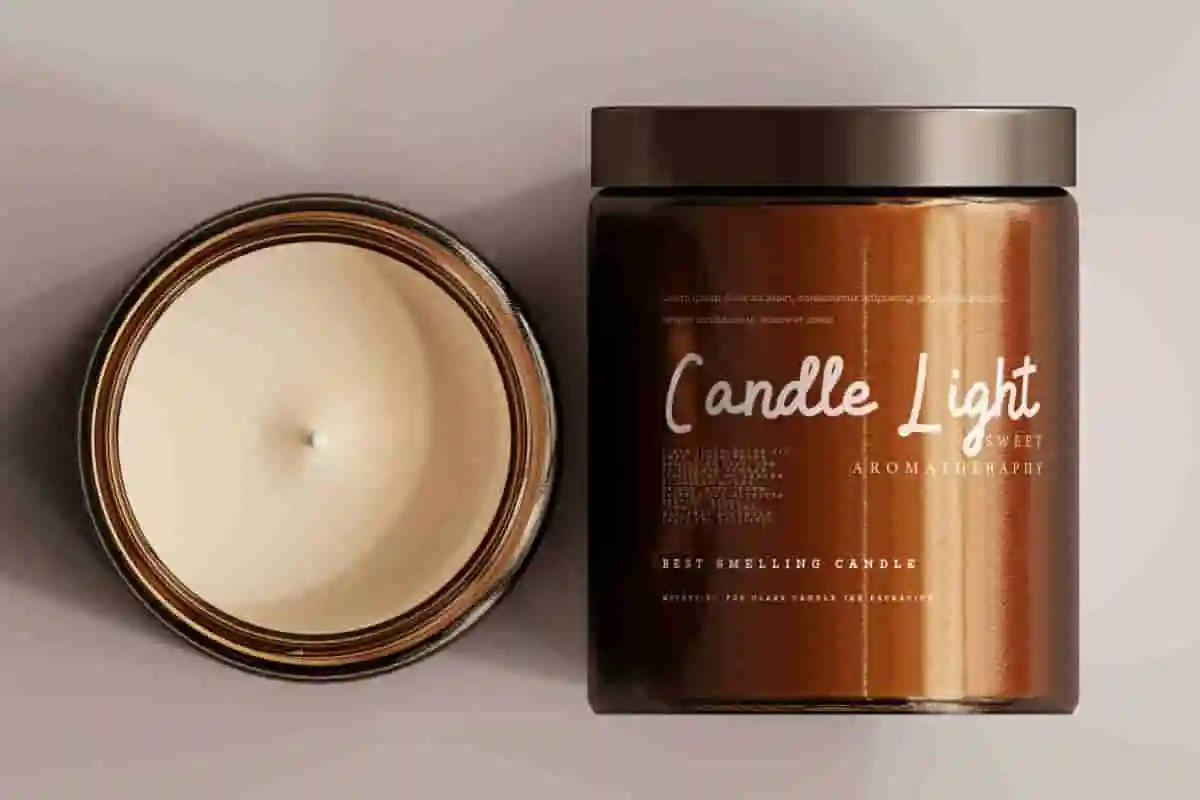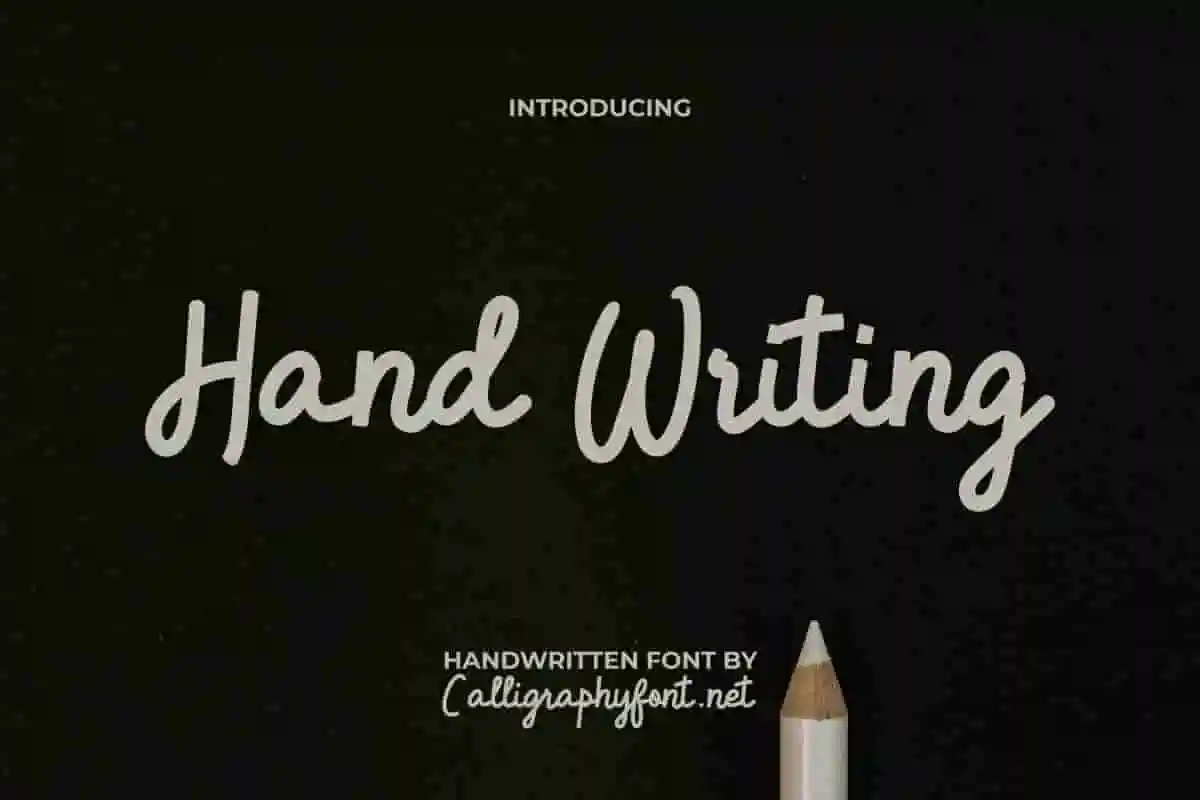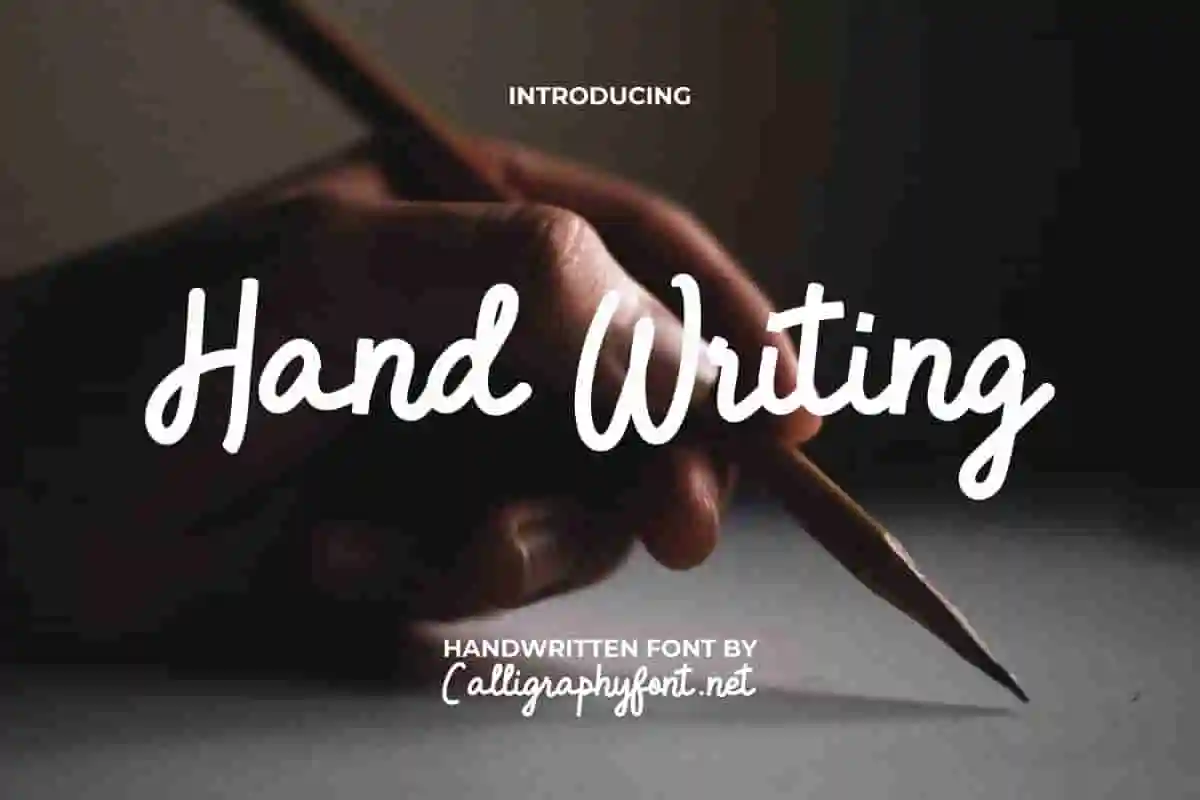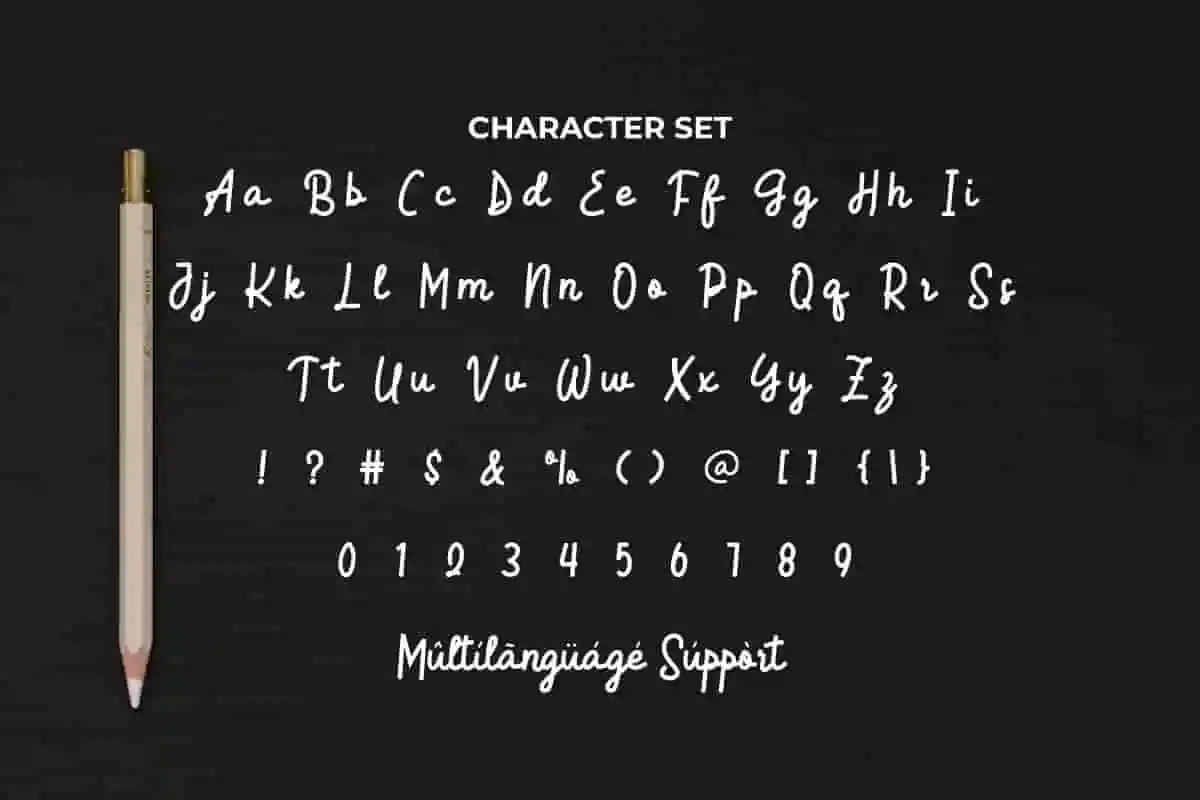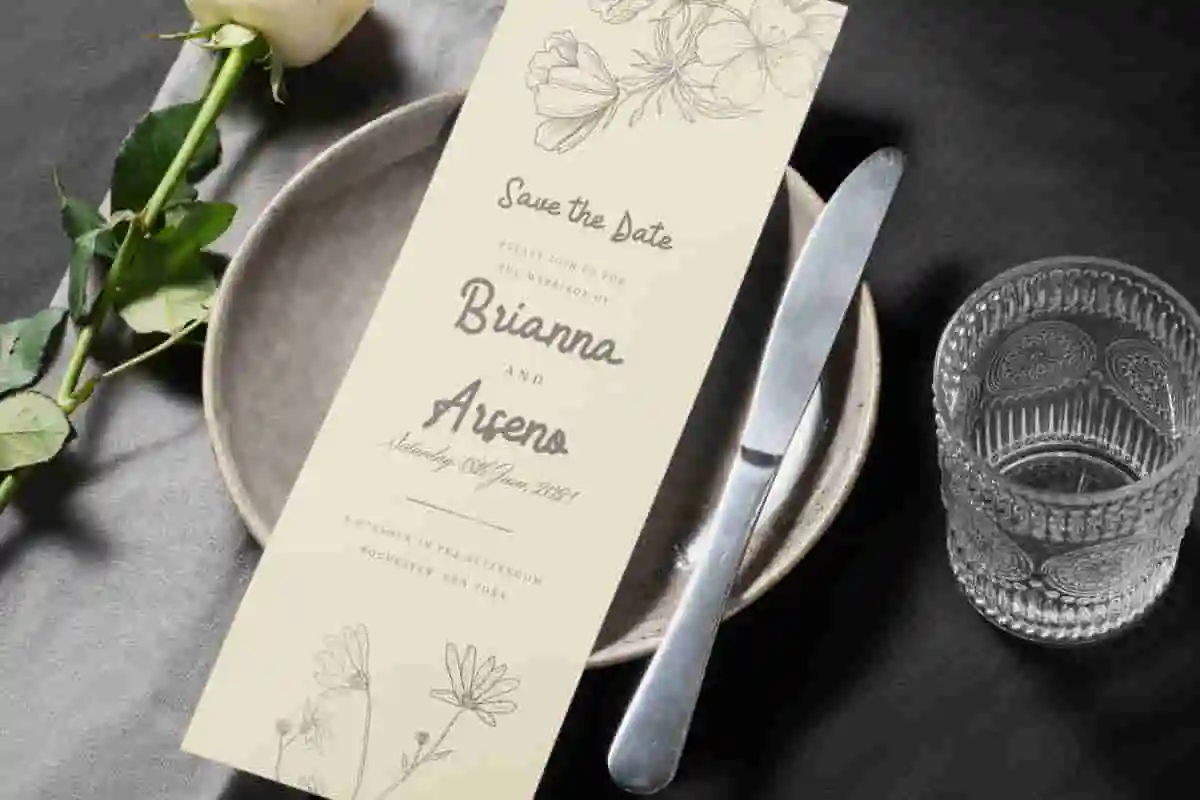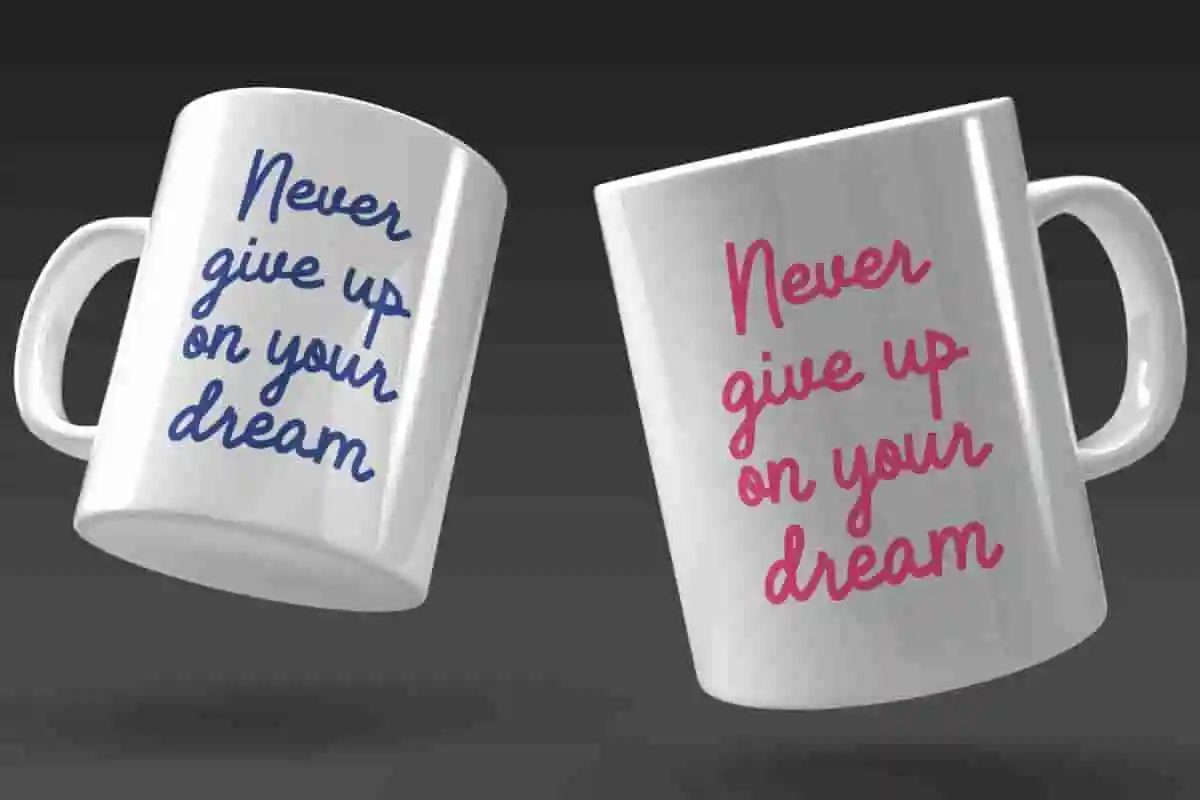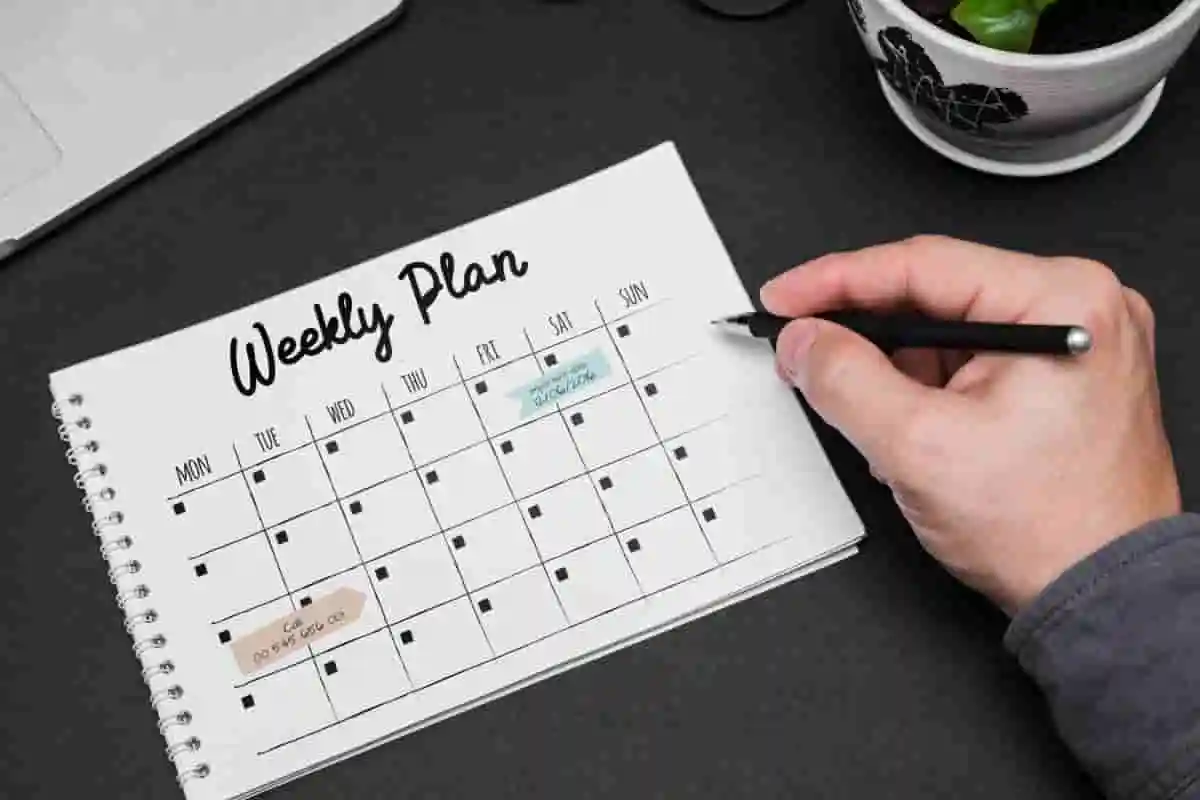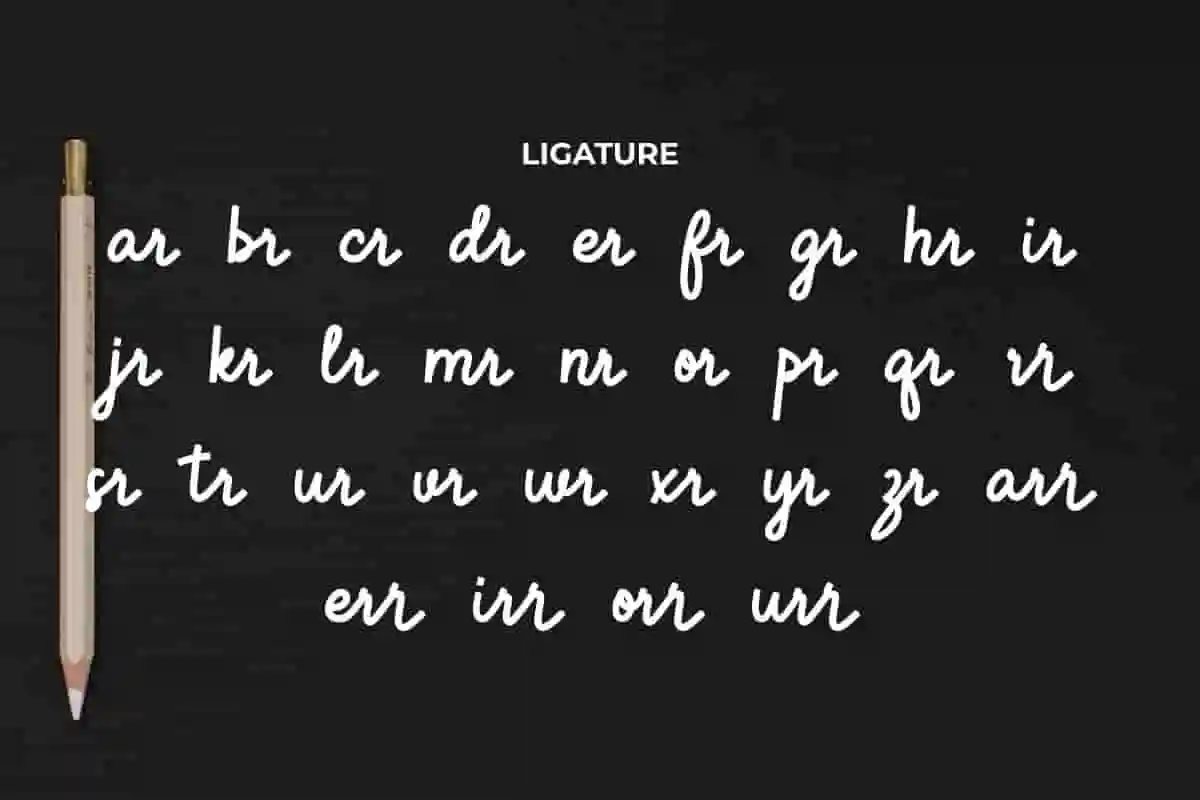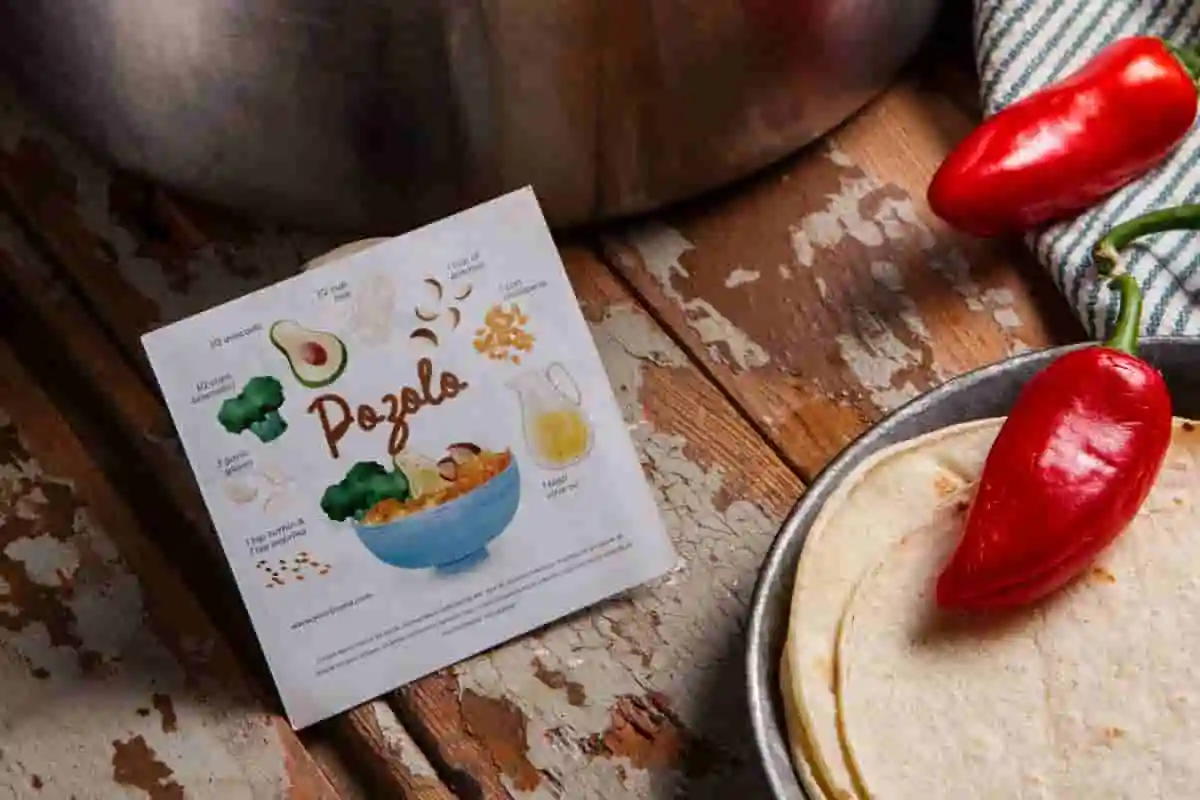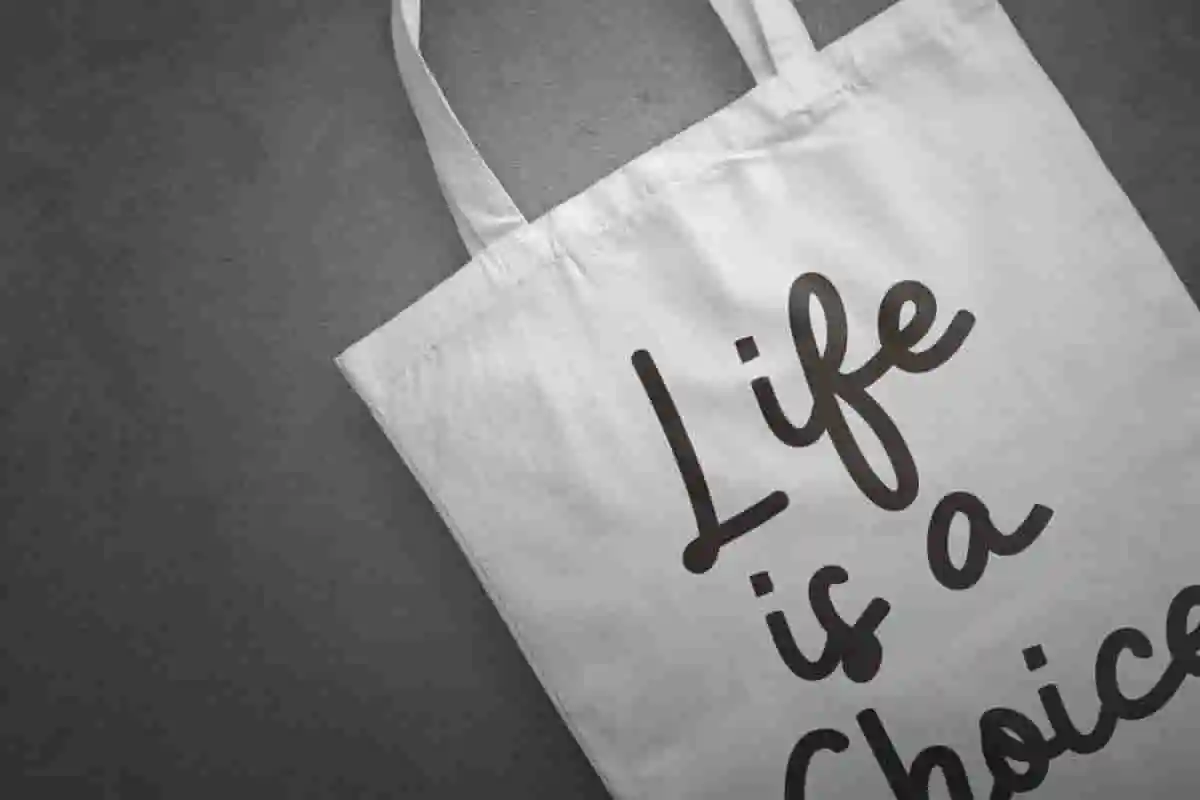
Hand Writing Display Font
Hand Writing Font is a Rounded and Bold handwritten font. The font is simple and easy to read so it’s suitable for brand logo, fashion designer, glassware, menu pamphlet, spa wax brand packaging, or simply use it in your background writing or marketing titles.
Hand Writing Font is a Rounded Bold stylish handwritten font. It has a not boring look with perfectly round thick brush strokes to keep it steady and charming will go well for your creative projects, such as advertisement, billboard, brand logo, business card, company sign, cover, header, invitation, label, menu, product packaging, quotes, recipe book, screen print, sticker, title, website, etc.
Looking for a font that brings warmth, creativity, and originality to your work? Meet Hand Writing Display Font, a beautifully crafted handwritten display font that turns your text into expressive, eye-catching design. Whether you’re a designer, small business owner, or content creator, this handwriting font adds a human touch that digital typefaces often lack.
Introducing Hand Writing Display Font, a playful and personal handwritten display typeface designed to bring emotion and authenticity into every design. This isn’t just another font — it’s a creative expression that feels like it was written just for you. Inspired by real handwriting with a touch of modern flair, Hand Writing Display Font adds character and charm to logos, posters, product packaging, digital content, wedding invitations, and more.
If you’re looking for a way to bring warmth, creativity, and personality to your design work, Hand Writing Display Font is the perfect choice. This stylish handwritten display font is designed to capture the feel of natural handwriting while delivering a polished, professional look. With its flowing strokes and organic texture, Hand Writing Display Font is ideal for use in headlines, logos, social media posts, product packaging, wedding invitations, and any creative project that needs a human touch.
• Real Handwritten Look
• Made for Display Use
Hand Writing Font will be great for any industry including: accessories, author, bakery, café, cooking class, craft, fashion, film, glassware, interior design, printing, publishing, restaurant, spa salon, and anything that requires a touch of pretty handwriting. Carefully crafted so as to create perfection in the writing and add aesthetics to every design made, easy to read with stunning look.
Hand Writing Font comes with a full set of Uppercase and Lowercase Basic Characters, Number, a large range of Punctuation, Symbol, Ligatures, and also supports multilingual characters. Ready to use both on Windows machine or Mac with simple installations. It’s tested to work well in the Adobe Apps (Illustrator, Adobe InDesign, Adobe Photoshop) CorelDraw, and others. PUA Encode Characters means you can access all the glyphs and swashes with ease – Fully accessible without additional design software.